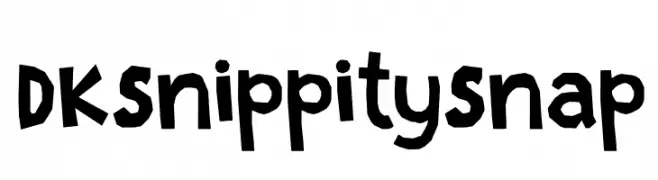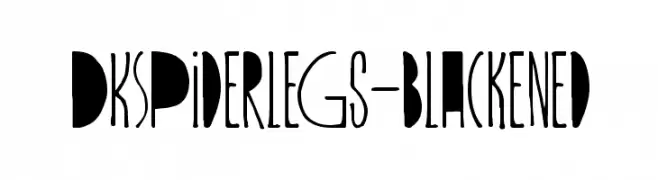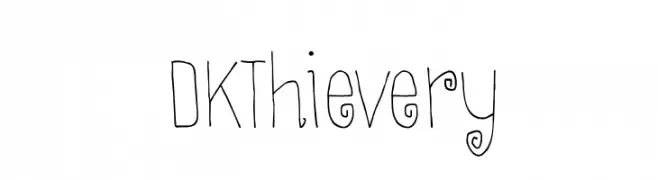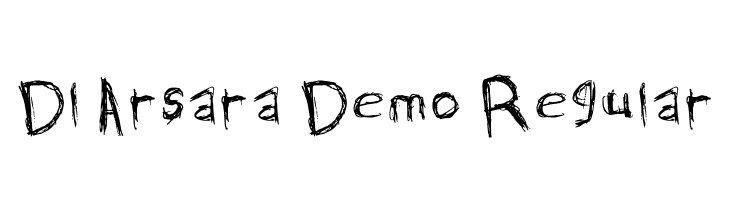
A playful, artistic handwritten font with dynamic strokes and whimsical flourishes.
A hand-drawn, whimsical font with tall, narrow characters and uneven strokes.
A bold, angular, and dynamic font with a playful style.
A hand-drawn, artistic font with tall, slender characters and a playful style.
A playful and whimsical font with unique decorative elements.
A playful, handwritten font with bold, rounded strokes and a whimsical touch.
A rugged, hand-drawn font with bold, textured strokes and an expressive style.
Ornamental font with bird-themed illustrations for each character.